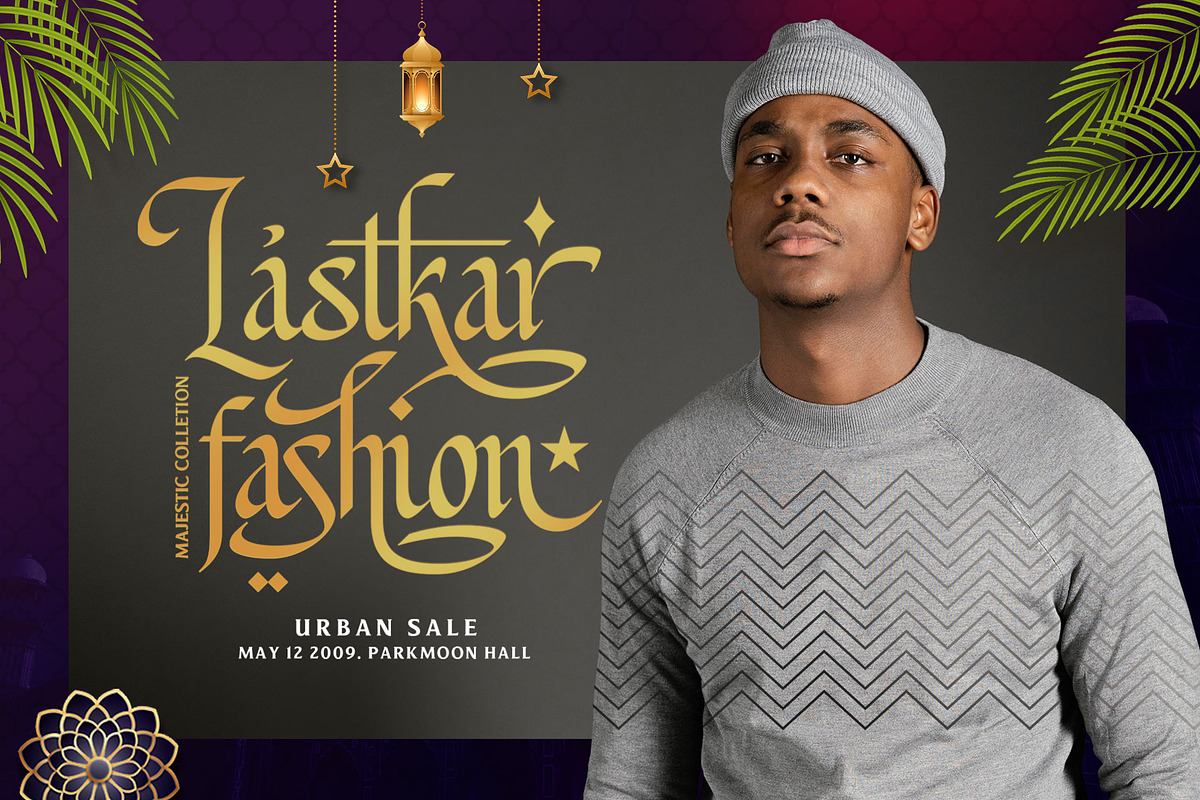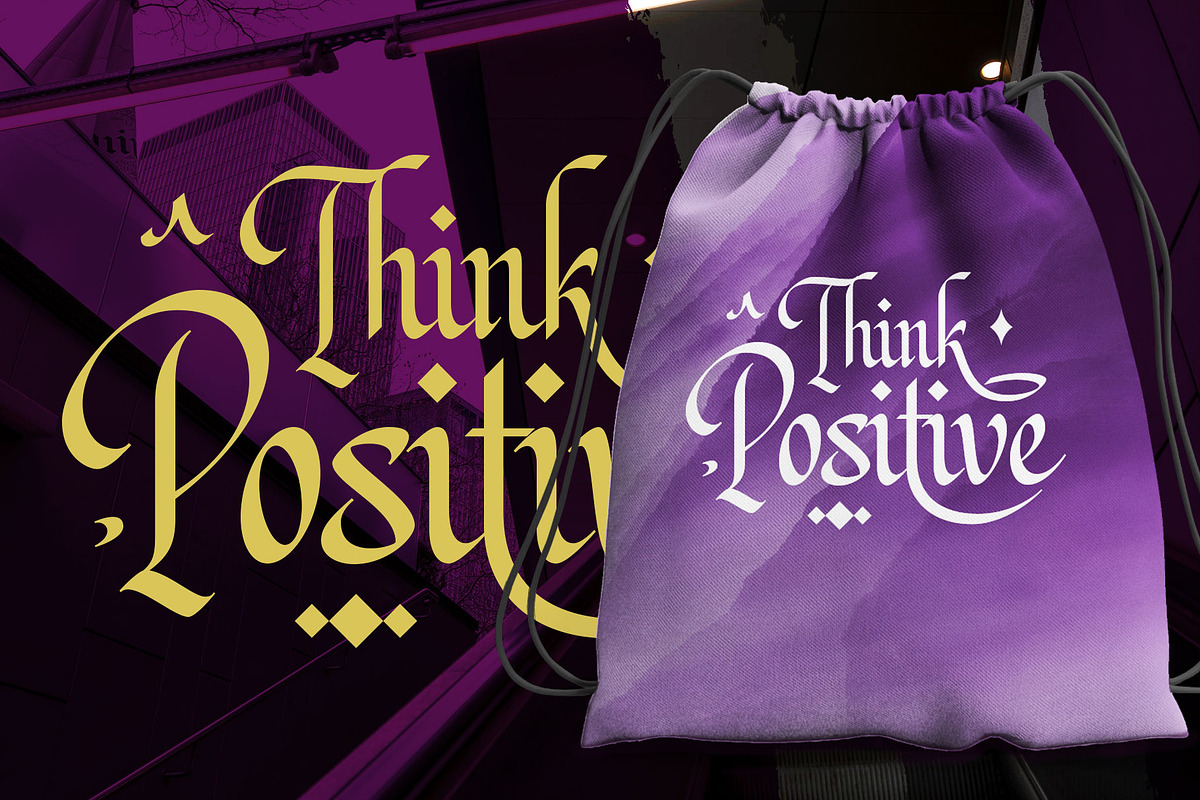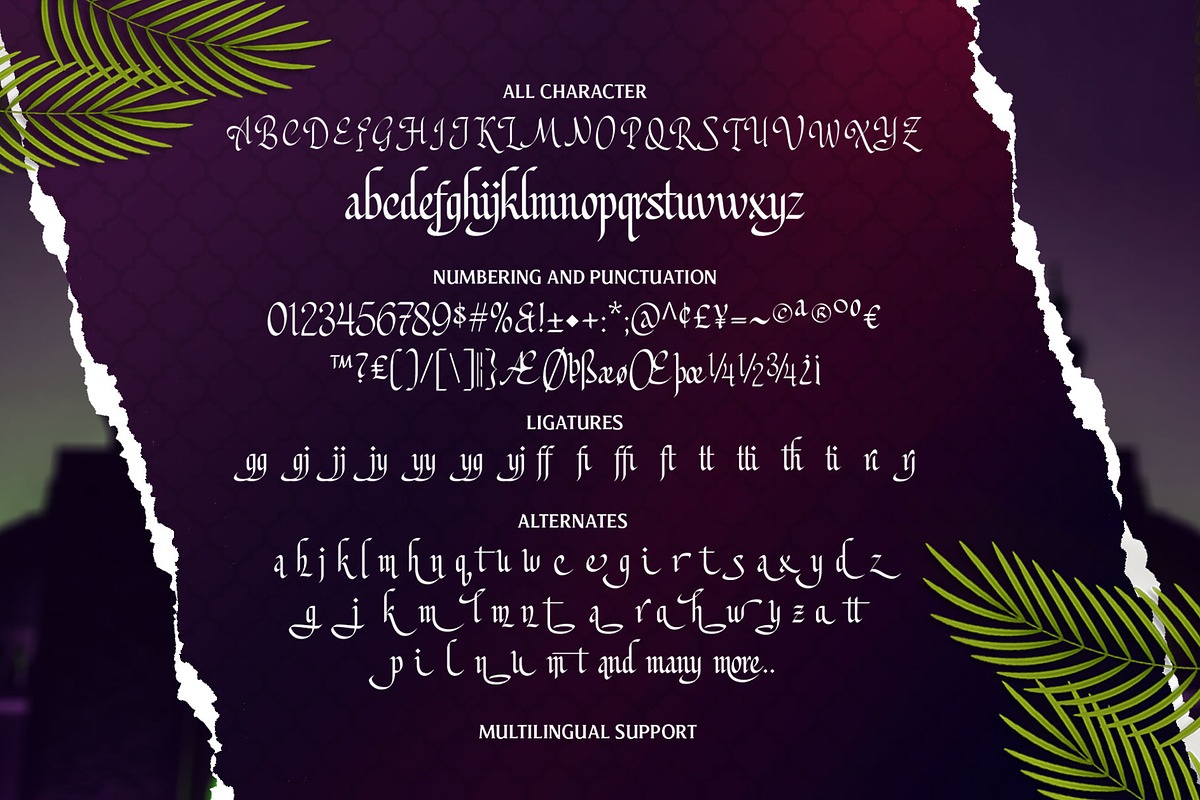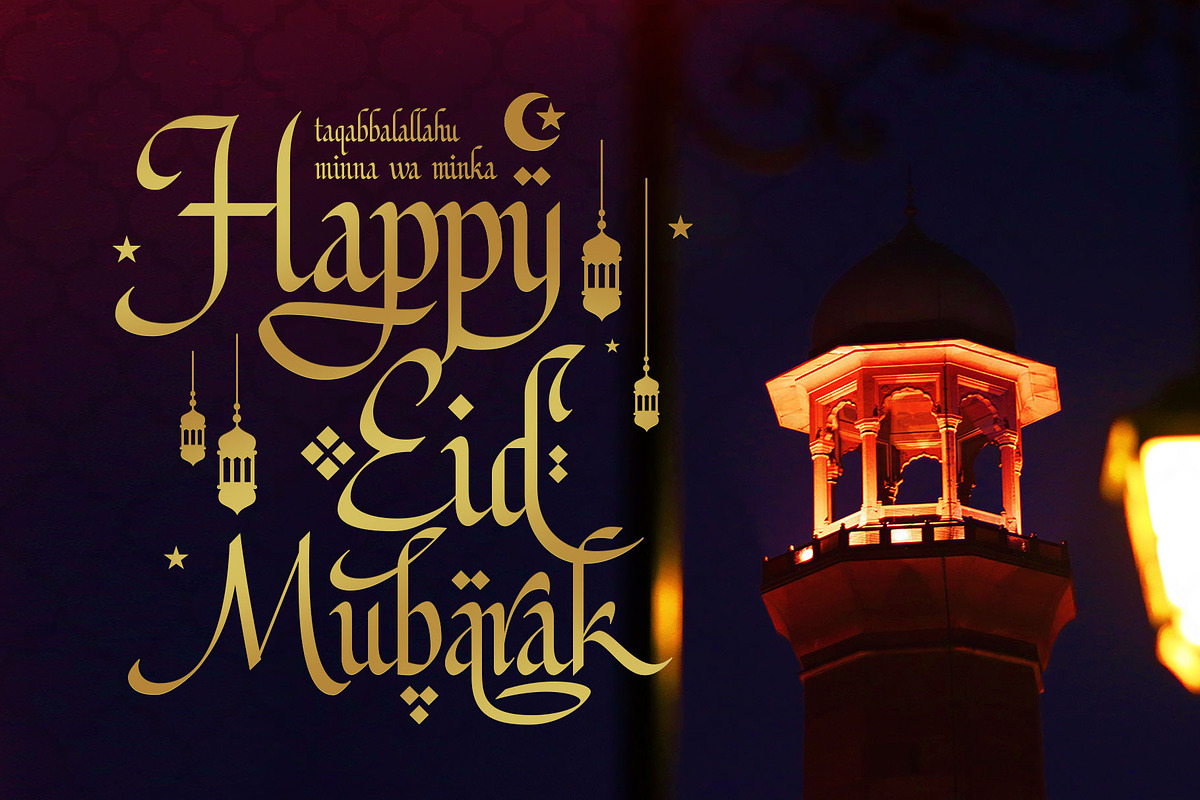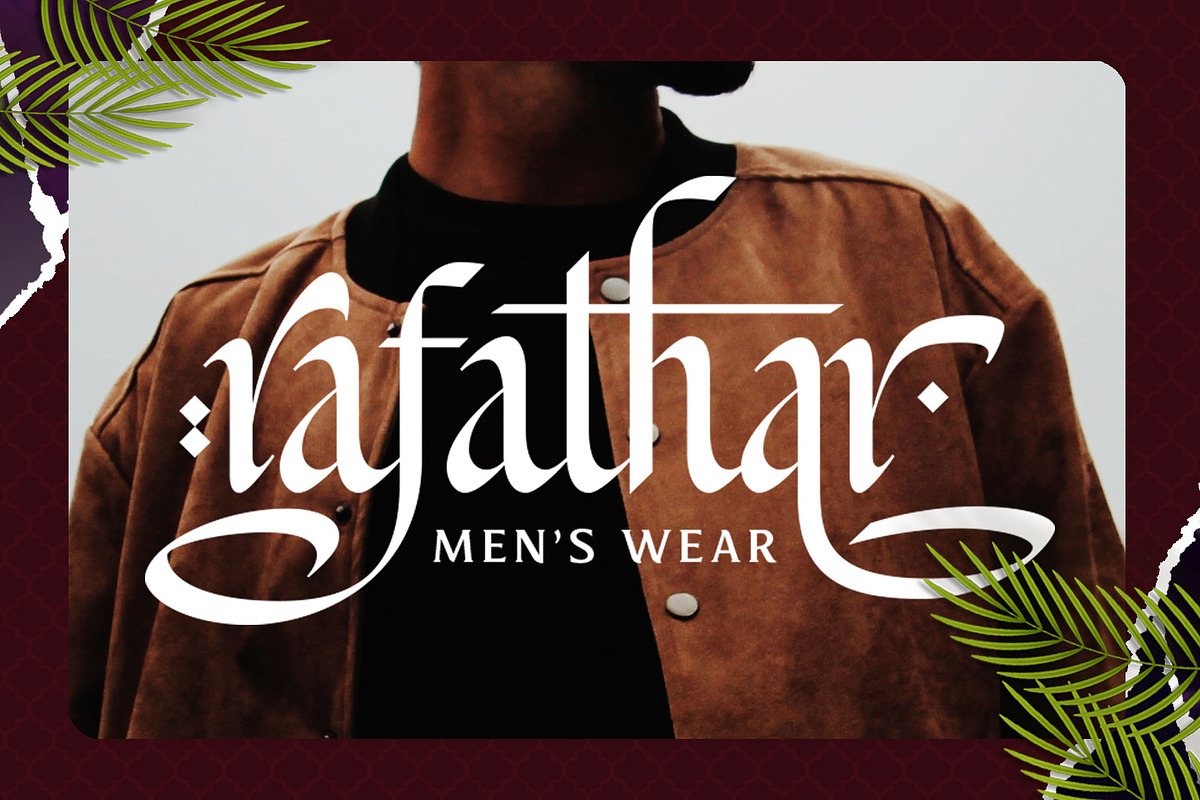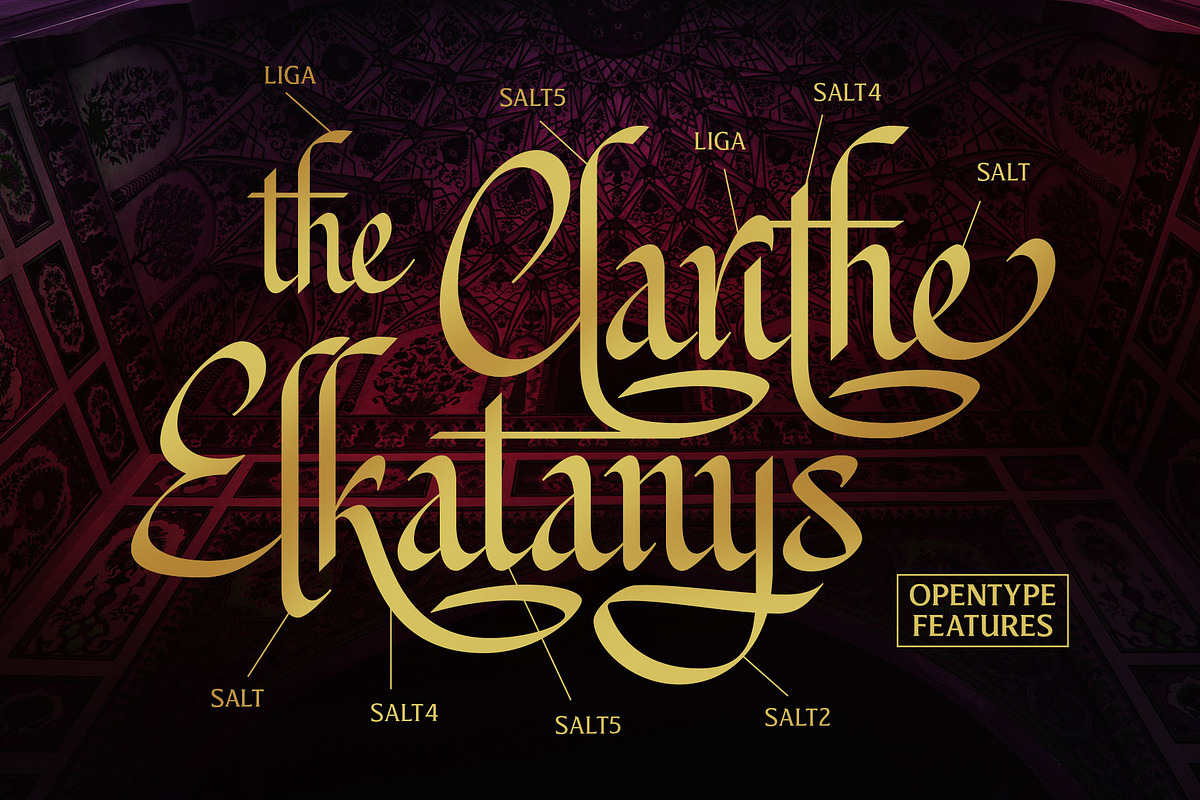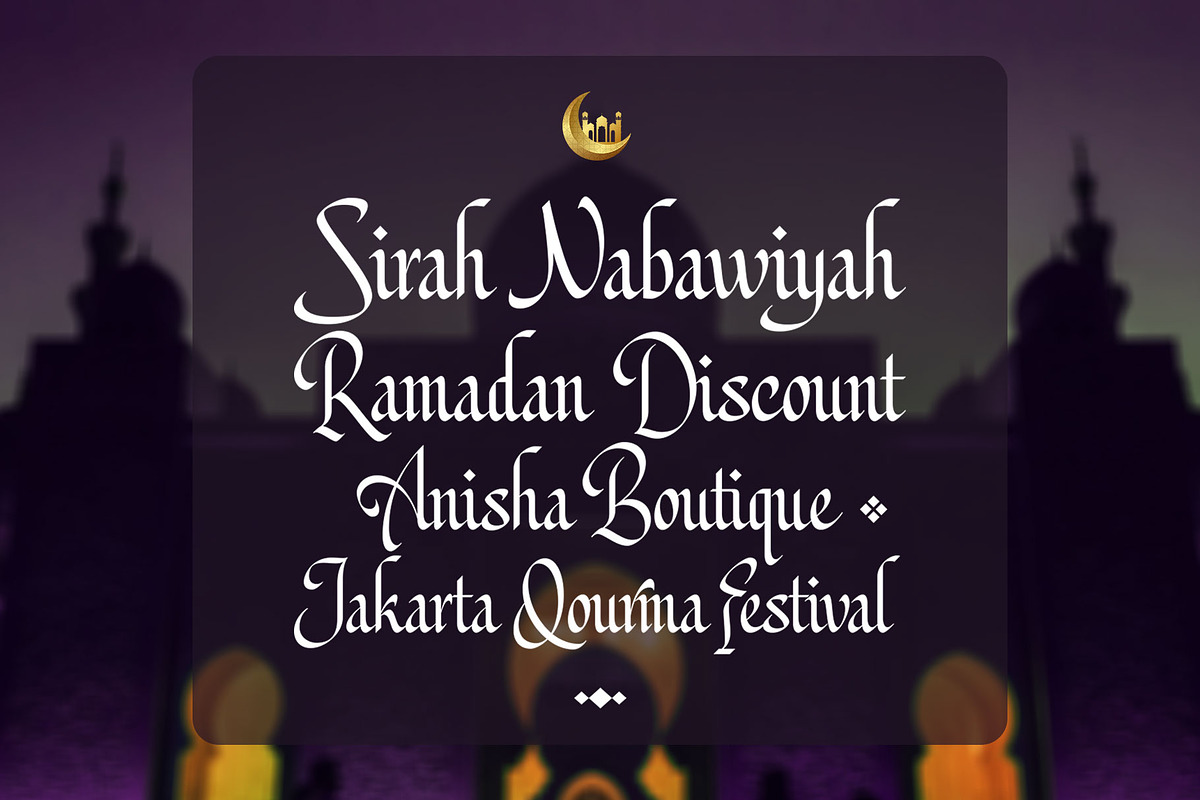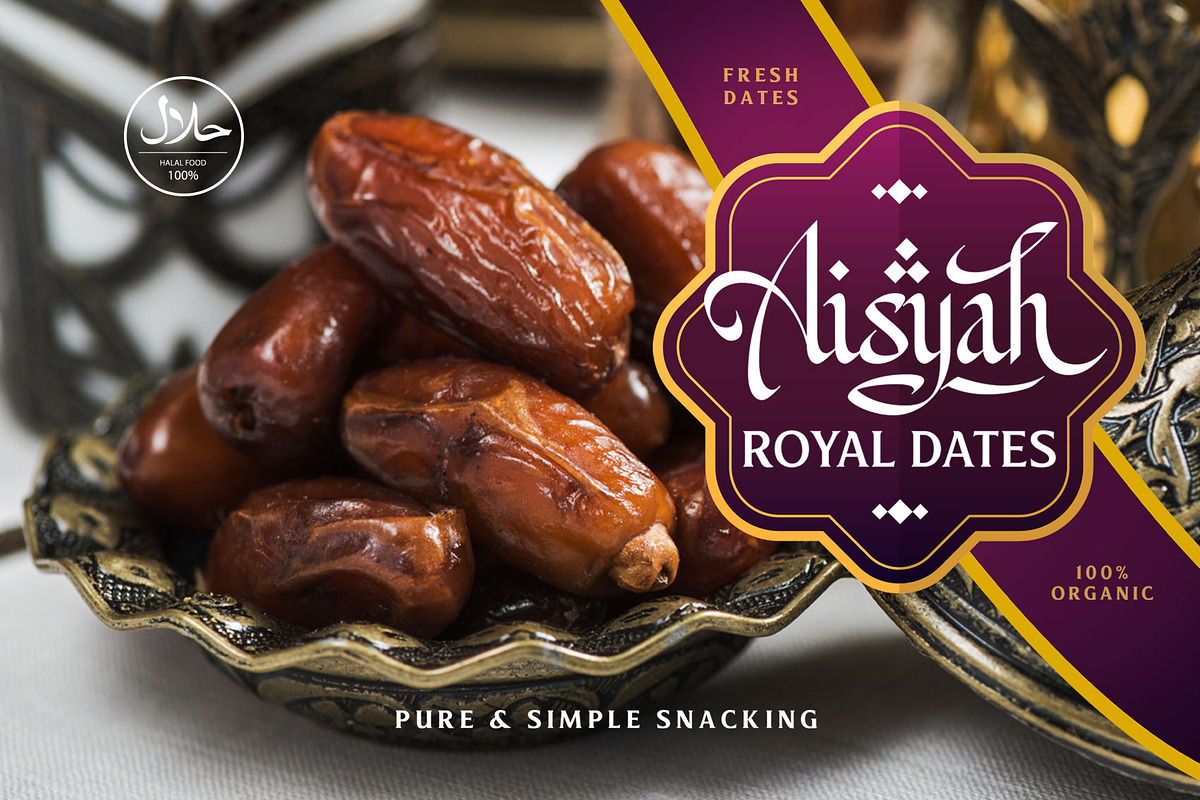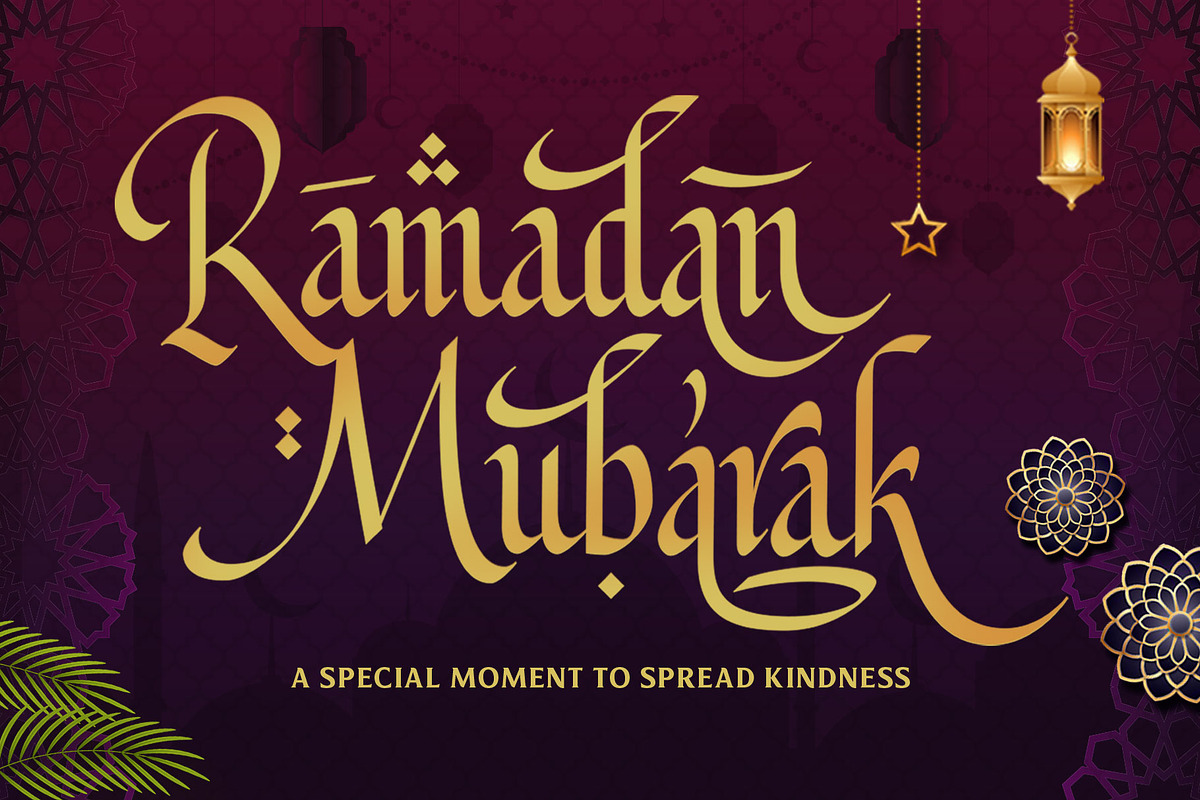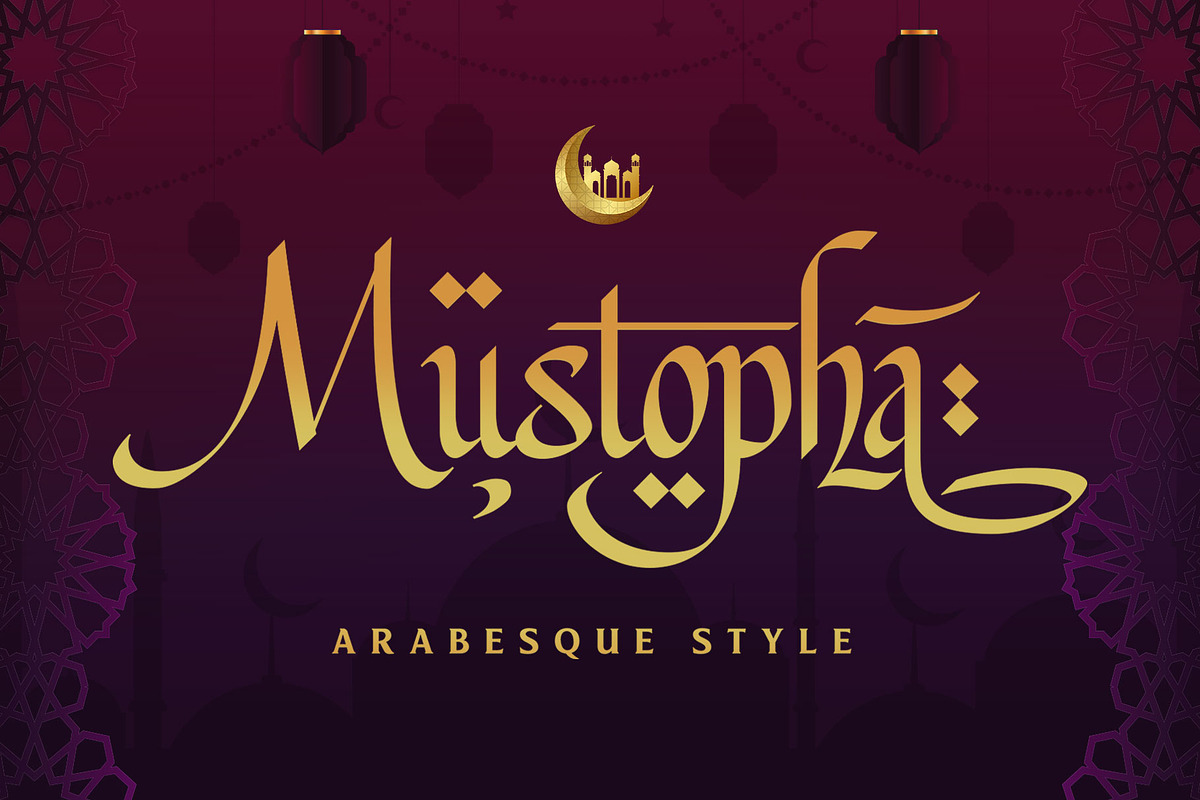
Mustopha - Arabic Style
Greetings! Introducing Mustopha, the brand new Arabic font, inspired by Latin classic handwriting and Arabic letters called 'hijaiyah'. The letterforms designed by a combination of Carolingian typography which visualizes a humanism feel and the Arabic calligraphy that mostly showing decorative with the long-swash of the letters.
Feel the humanism with this font, neat, elegant, and luxurious with an extra set of alternates characters and Arabic symbols as a decoration of your typographic design. Musthopa created to bring back the classic typography (specifically cursive typography) between the many styles of design trends.
This beautiful font also designed to be versatile that you can use this font for many themes, not only Islamic or Arabic. Perfect choice for poster, logo, branding, greeting card, wedding, apparel, cosmetic labels, packaging, Book cover, short body text, quotes, and many more!
Fonts Featured :
- Stylistic alternates
- SS01 - SS05
- Extras